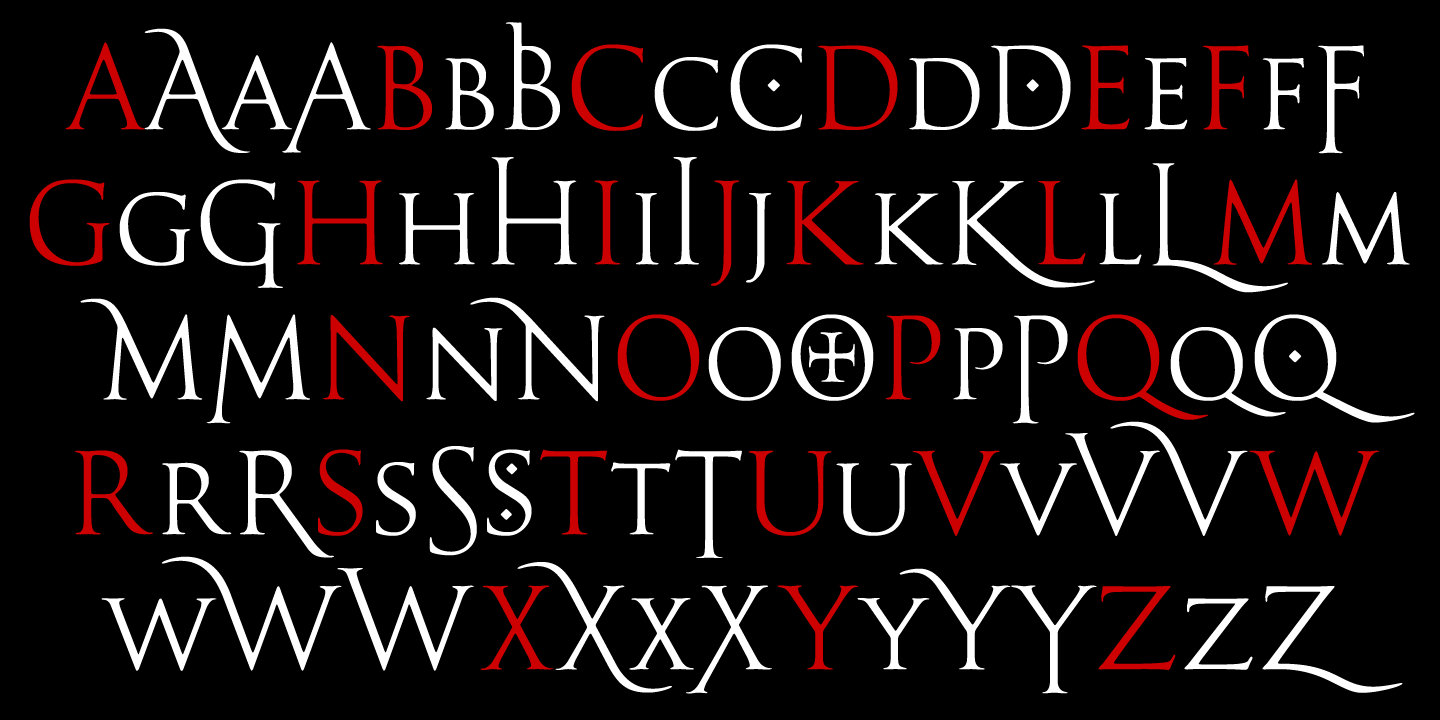
Download trajan pro regular for free. Goudy trajan pro regular, a classic titling font, is based on the drawings by f.w. The goudy trajan pro™ includes the following font families: